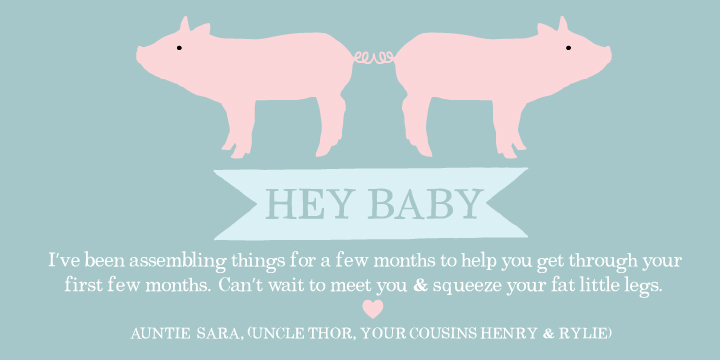
Gothic Revival Layered is a typeface created by Chyrllene K and published by Intellecta Design in 2012.
Cedra 4F is a typeface created by Sergiy Tkachenko and published by 4th february in 2010-2011.
Martita is a typeface created by Bartek Nowak and published by GRIN3 (Nowak). If you are looking for an elegant handwritten font that can be used for invitations, posters, wedding invitations etc., now you find it. Have fun!
Literatura Pro is a typeface created by Ralph M. Unger and published by RMU. It is an elegant font that can be used for book production. Enjoy!
Australis Pro is a typeface created by Francisco Galvez and published by Latinotype. This is a font perfect for magazines and it has ten years of learning to improve.
Bricklayers is a typeface created by Ralph M. Unger and published by RMU. This font is perfect for headlines, posters and if you want to build your own wall for your projects, you cannot miss this typeface!
Ressonant is a typeface created by Paul Smith and published by Octopi. It is an elegant, decorative font and it has a full character set.
Carte Blanche is an typeface created by David Kerkhoff and published by Hanoded. It is an elegant handmade font perfect for your projects.
Ziggy Sans is a typeface created by Jace Inman and published by Just Jace. It is a simple font, each letterform is avaible in two headline.
Crow’s Nest is a typeface created by Sara Bee Jensen and published by Design23 in 2012.
Stile is a typeface created by Felippo Salmina and published by FSdesign-Salmina in 2012. It is perfect for headline, magazine. Try it!
Frosted is a typeface created by Dathan Board & Molly Jacques Erickson and published by Great Lakes Lettering. It is an elegant handwritten font, leaving you the impression that is a man writing.
Ampacity is a typeface created by Ray Larabie and published by Typotermic. Narrow characters are made of neon.
Buckley is a typeface created & published by Laura Worthington. It is a handwriting font and there are three variations of each letter.
Aire is a typeface created by Maximiliano Sproviero and published by Lián Types. This is a elegant, caligraphic font perfect for love leters, wedding invitations, Christmas cards etc. If you’re a romantic, buy this font!
Calcium HMK is a typeface published by Hallmark in 2010. The characters of this font are made of small bones. It is perfect dor Halloween posters.
Albion’s White Christmas is a typeface created by Paul James Lloyd and published by Greater Albion Typefounders. It is perfect for vintage Christmas cards, old magazines.
Cogtan is a typeface created by Leandro Ribeiro Machado and published by Leandro Ribeiro. This is a geomentric font and is recommended to use short headlines and phrases.